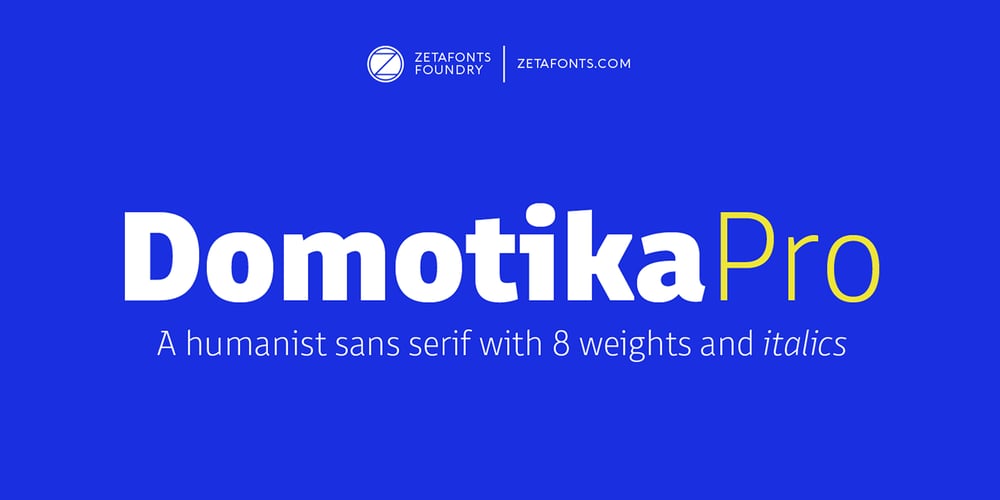
Domotika Pro Font Family was designed by Andrea Tartarelli, Cosimo Lorenzo Pancini and published by Zetafonts. Domotika Pro contains 18 styles and family package options. Domotika was first designed for Zetafonts by Cosimo Lorenzo Pancini in 2018, trying to translate the modernist and humanist ideals into typographic form, looking for a conversation between the classical and the contemporary, the hand-made and the technological. Following the motto of Mies Van Der Roe and Gustave Flaubert (“God is in the details”), Domotika takes inspiration from architectural practice, with a pragmatic attention to functionality that doesn’t forget aesthetics. Its design juxtaposes the open humanist letterforms to slight calligraphic curve endings that marries perfect readability to expressive design. The name itself of the typeface is an homage to the science of living comfortably, with its reference to “domotics”, robotic technology for use in the home. In 2021 Andrea Tartarelli, who originally designed Domotika italics, completely reworked the original type family adding over five hundred glyphs to the original set and extending the language coverage to include over two hundred languages using latin, Cyrillic and greek alphabets. Open type features have been also expanded, including positional numbers, small caps, ligatures, contextual alternates and stylistic sets, as well as tabular, lining and old-style numerals.• Suggested uses: conceived as a great tool for editorial use, great for display usage too, where readability and personality must match design space needs;• 18 styles: 8 weights + 8 italics + 2 variable fonts;• 1075 glyphs in each weight;• Useful OpenType features: Access All Alternates, Small Capitals From Capitals, Contextual Alternates, Case-Sensitive Forms, Glyph Composition / Decomposition, Denominators, Fractions, Kerning, Lining Figures, Localized Forms, Mark Positioning, Mark to Mark Positioning, Alternate Annotation Forms, Numerators, Oldstyle Figures, Ordinals, Proportional Figures, Stylistic Alternates, Scientific Inferiors, Small Capitals, Stylistic Set 1, Subscript, Superscript, Tabular Figures, Slashed Zero;• 219 languages supported (extended Latin, Cyrillic, Greek alphabets):English, Spanish, Portuguese, French, Russian, German, Javanese (Latin), Vietnamese, Turkish, Italian, Polish, Afaan Oromo, Azeri, Tagalog, Sundanese (Latin), Filipino, Moldovan, Romanian, Indonesian, Dutch, Cebuano, Igbo, Malay, Uzbek (Latin), Kurdish (Latin), Swahili, Greek, Hungarian, Czech, Haitian Creole, Hiligaynon, Afrikaans, Somali, Zulu, Serbian, Swedish, Bulgarian, Shona, Quechua, Albanian, Catalan, Chichewa, Ilocano, Kikongo, Kinyarwanda, Neapolitan, Xhosa, Tshiluba, Slovak, Danish, Gikuyu, Finnish, Norwegian, Sicilian, Sotho (Southern), Kirundi, Tswana, Sotho (Northern), Belarusian (Latin), Turkmen (Latin), Bemba, Lombard, Lithuanian, Tsonga, Wolof, Jamaican, Dholuo, Galician, Ganda, Low Saxon, Waray-Waray, Makhuwa, Bikol, Kapampangan (Latin), Aymara, Zarma, Ndebele, Slovenian, Tumbuka, Venetian, Genoese, Piedmontese, Swazi, Zazaki, Latvian, Nahuatl, Silesian, Bashkir (Latin), Sardinian, Estonian, Afar, Cape Verdean Creole, Maasai, Occitan, Tetum, Oshiwambo, Basque, Welsh, Chavacano, Dawan, Montenegrin, Walloon, Asturian, Kaqchikel, Ossetian (Latin), Zapotec, Frisian, Guadeloupean Creole, Q’eqchi’, Karakalpak (Latin), Crimean Tatar (Latin), Sango, Luxembourgish, Samoan, Maltese, Tzotzil, Fijian, Friulian, Icelandic, Sranan, Wayuu, Papiamento, Aromanian, Corsican, Breton, Amis, Gagauz (Latin), Māori, Tok Pisin, Tongan, Alsatian, Atayal, Kiribati, Seychellois Creole, Võro, Tahitian, Scottish Gaelic, Chamorro, Greenlandic (Kalaallisut), Kashubian, Faroese, Rarotongan, Sorbian (Upper Sorbian), Karelian (Latin), Romansh, Chickasaw, Arvanitic (Latin), Nagamese Creole, Saramaccan, Ladin, Kaingang, Palauan, Sami (Northern Sami), Sorbian (Lower Sorbian), Drehu, Wallisian, Aragonese, Mirandese, Tuvaluan, Xavante, Zuni, Montagnais, Hawaiian, Marquesan, Niuean, Yapese, Vepsian, Bislama, Hopi, Megleno-Romanian, Creek, Aranese, Rotokas, Tokelauan, Mohawk, Onĕipŏt, Warlpiri, Cimbrian, Sami (Lule Sami), Jèrriais, Arrernte, Murrinh-Patha, Kala Lagaw Ya, Cofán, Gwich’in, Seri, Sami (Southern Sami), Istro-Romanian, Wik-Mungkan, Anuta, Cornish, Sami (Inari Sami), Yindjibarndi, Noongar, Hotcąk (Latin), Meriam Mir, Manx, Shawnee, Gooniyandi, Ido, Wiradjuri, Hän, Ngiyambaa, Delaware, Potawatomi, Abenaki, Esperanto, Folkspraak, Interglossa, Interlingua, Latin, Latino sine Flexione, Lojban, Novial, Occidental, Old Icelandic, Old Norse, Slovio (Latin), Volapük